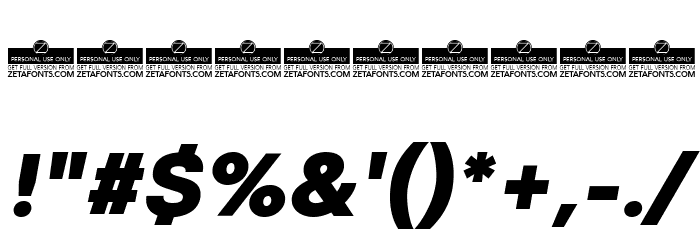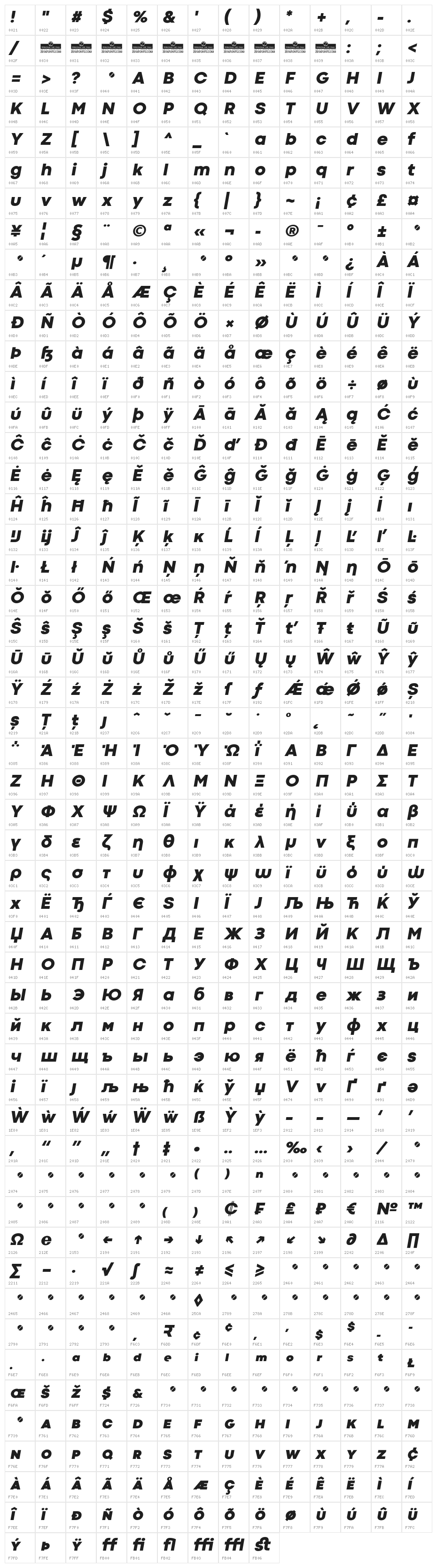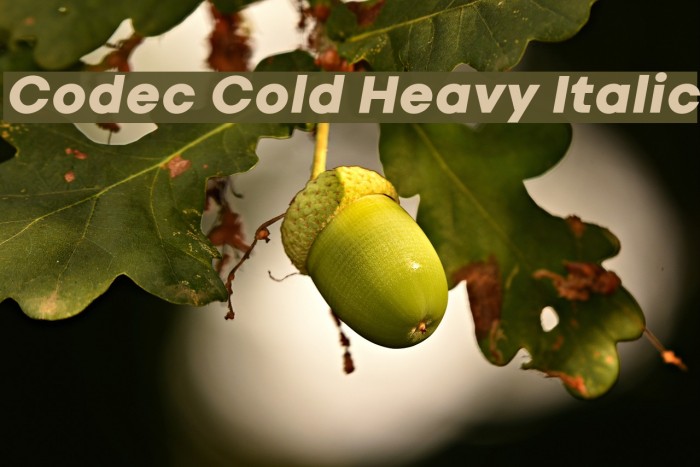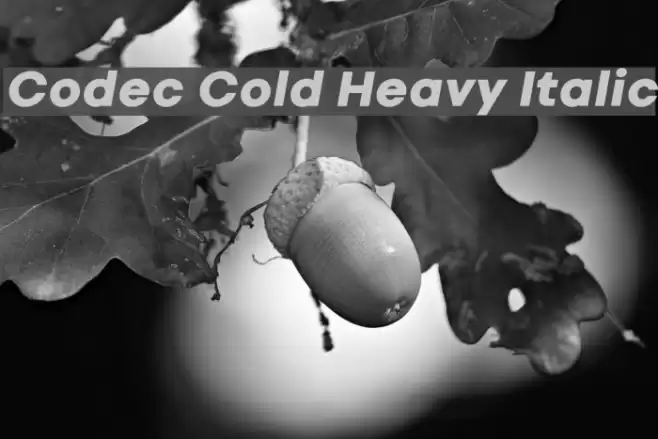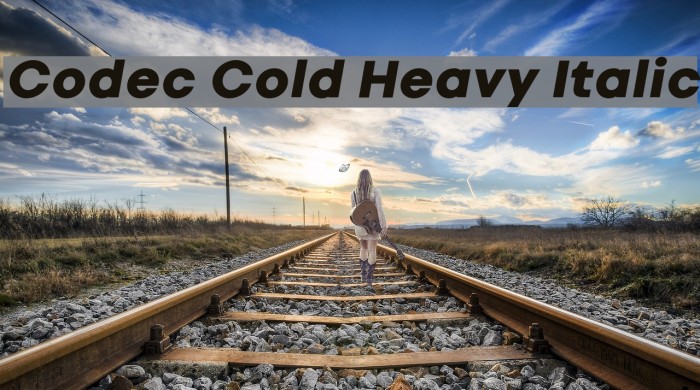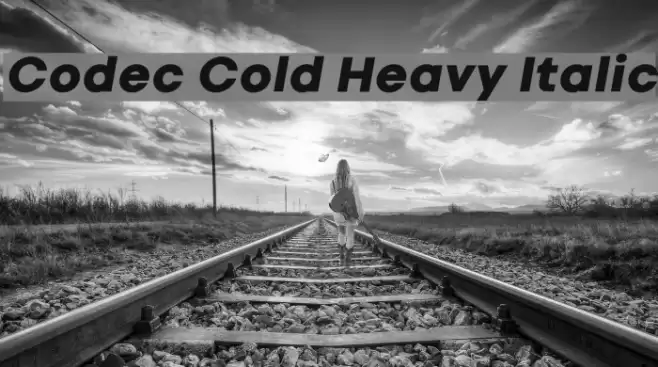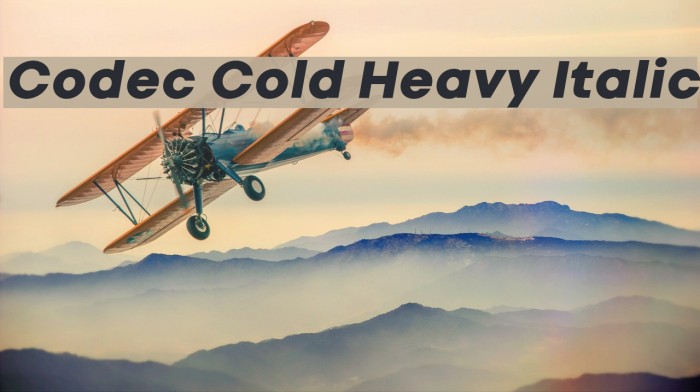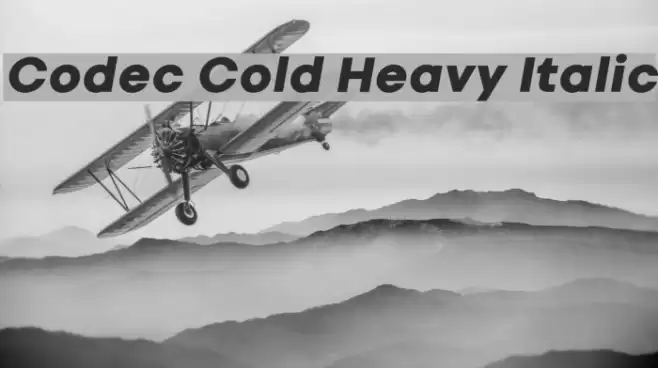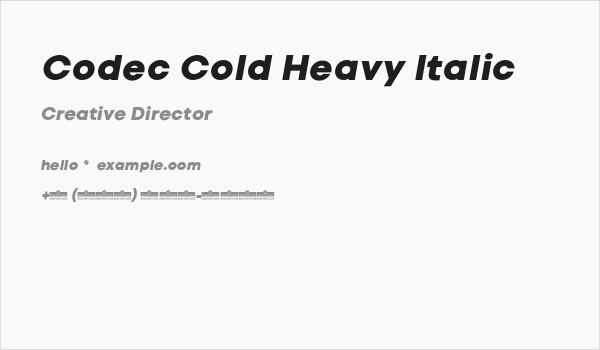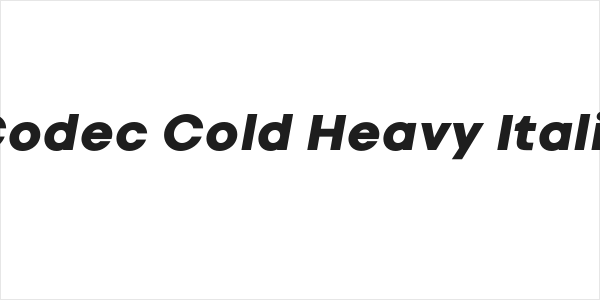
Codec Cold Heavy Italic Font
Codec Cold Heavy Italic Description
This font features a bold and italicized style, characterized by its heavy weight and strong presence. The letters are slightly slanted, giving a dynamic and forward-moving appearance. The strokes are thick and consistent, providing a robust and impactful look. The uppercase and lowercase letters are well-proportioned, maintaining clarity and readability. The numerals and special characters are designed to match the bold aesthetic, ensuring uniformity across all glyphs. This font is ideal for making a statement with its assertive and modern design.
| Proposed Projects | Ideal for headlines, branding, posters, and any design requiring a strong visual impact. |